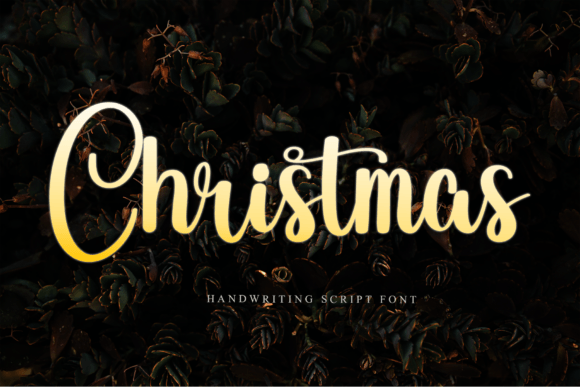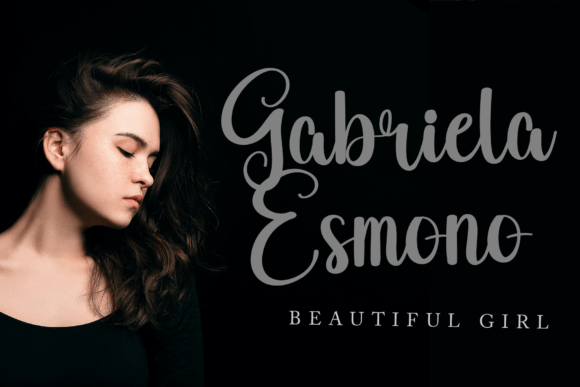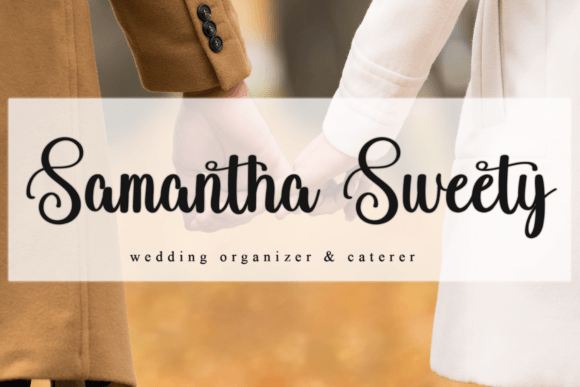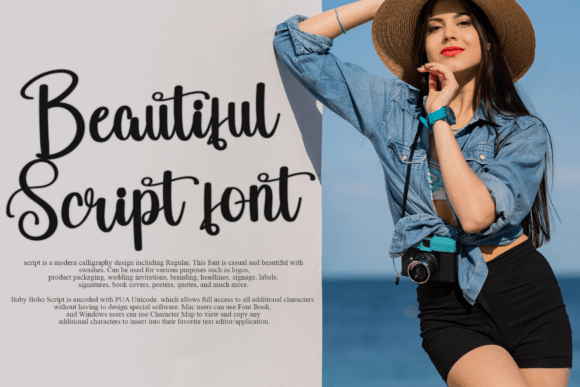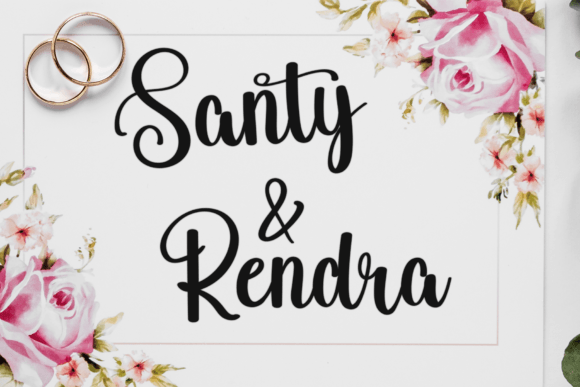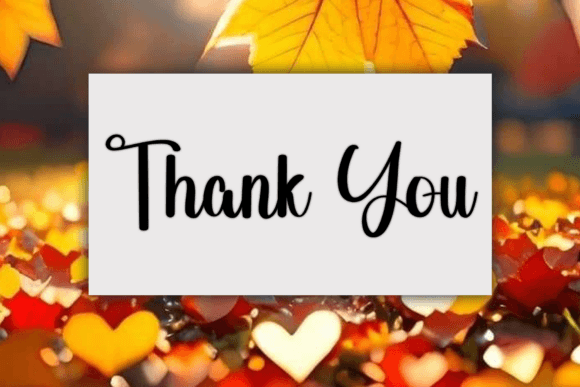
The Magic of Christmas Font: Bringing Warmth to Your Designs
As a designer, there’s nothing quite like the rush of inspiration that comes with creating something special for the holiday season. Whether it’s a festive invitation, a heartfelt greeting card, or a cozy brand identity, the right font can make all the difference. For me, that perfect font is Christmas Font – a delightful handwritten font that captures the essence of the season with its whimsical strokes and varied letterforms.
Christmas Font is more than just a pretty face; it’s a tool for conveying warmth and personality in your designs. Its unique character and charm make it perfect for adding a touch of authenticity to any project. Whether you’re a seasoned designer or a DIY enthusiast, this font is a valuable addition to your toolkit. With Christmas Font, you can create designs that feel truly special – and that’s the magic of the holiday season in a font.
Christmas Font Key Features
- Unique Characteristics: Includes festive and holiday-themed characters, ornaments, and decorations
- Font Style: Offers various font styles, including bold, italic, and regular
Designer Review: Christmas Font
At first glance, I was excited to dive into the Christmas Font. The cheerful, cursive design was reminiscent of old-fashioned holiday cards and immediately put me in a festive mood. ✨ I love how the font incorporates a sense of whimsy and playfulness, making it perfect for designs that require a lighthearted touch. The bold, expressive lines add a sense of texture and visual interest, which can be really effective in creating eye-catching graphics.
However, there are a few limitations to consider. ⚠️ One of the main issues I encountered was the font’s limited character set. It’s not suitable for longer blocks of text, as the spacing between characters can become inconsistent and messy. Additionally, the font’s bold weight can be a bit overwhelming in certain contexts, making it difficult to read. I also noticed that the font doesn’t include any ligatures or contextual alternates, which can result in some awkward letter combinations.
- Cheerful, cursive design perfect for festive and lighthearted designs
- Bold, expressive lines add visual interest and texture
- Perfect for short text blocks and headlines
- Limited character set
- Bold weight can be overwhelming in certain contexts
- No ligatures or contextual alternates
Christmas Font: A Practical Application Guide
Tip: Use the Christmas Font to create festive headings and titles in your Canva designs.
Tip: Use the Christmas Font to create custom holiday graphics and illustrations.
Tip: Use the Christmas Font to create festive holiday presentations and documents.
The Christmas Font is perfect for:
- Holiday greeting cards and invitations.
- Christmas party decorations and signage.
- Winter-themed social media graphics and posts.
- Custom holiday gift tags and labels.
Alternatives to Christmas Font for Designers
Great Vibes is a beautiful, elegant script font that is perfect for adding a touch of sophistication to your holiday designs. It’s ideal for use in invitations, greeting cards, and other festive materials where you want to convey a sense of luxury and refinement.
Compared to Christmas Font, Great Vibes has a more refined and subtle feel, making it a great choice for designers who want to avoid the more kitschy and over-the-top look of Christmas Font.
Carolyna Pro is a modern, elegant script font that is perfect for use in holiday designs where you want to convey a sense of elegance and sophistication. It’s ideal for use in invitations, greeting cards, and other festive materials where you want to add a touch of glamour and sophistication.
Compared to Christmas Font, Carolyna Pro has a more refined and modern feel, making it a great choice for designers who want to avoid the more traditional and old-fashioned look of Christmas Font.